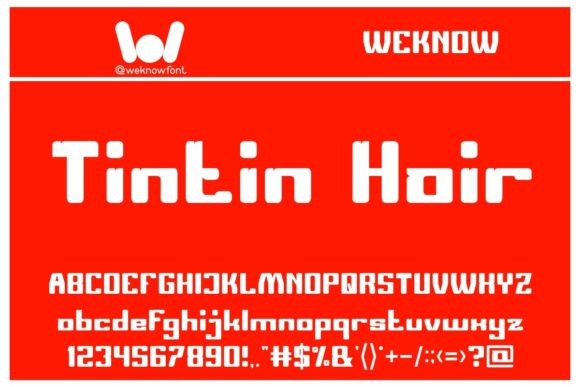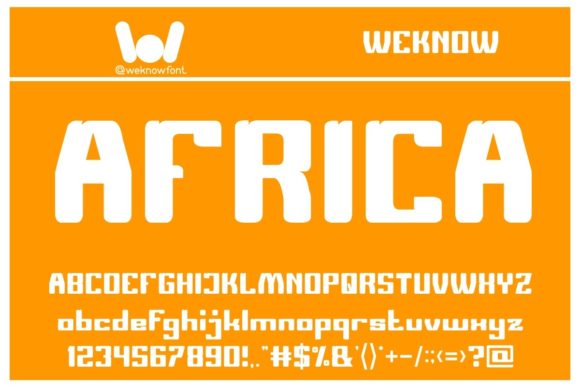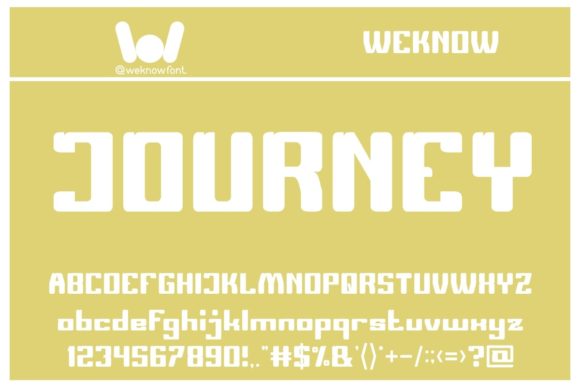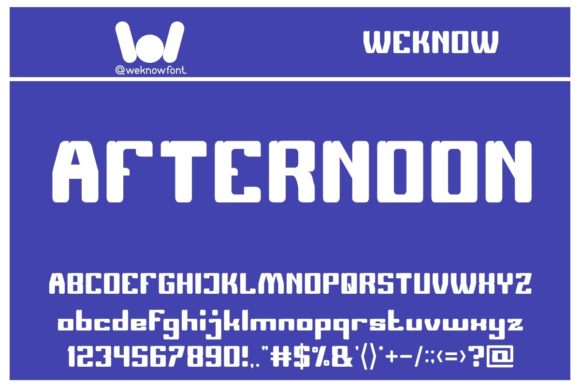
The Great Heart Font: A Bold and Robotic Styled Display Font for Your Creative Projects
I still remember the frustration of working on a branding project, only to get stuck on finding the perfect font. My client wanted something bold, modern, and eye-catching, but I just couldn’t seem to find the right fit. That’s when I stumbled upon the Great Heart font, and it instantly became my go-to choice. In this article, I’ll share my experience with this amazing font, its features, and how to make the most of it in your creative projects.
An Honest Review of Great Heart Font
What I Love About Great Heart Font
- ✨ Bold and Robotic Style: Great Heart font boasts a unique, bold, and robotic style that instantly grabs attention.
- ✅ Versatility: This font is suitable for a wide range of projects, including logos, t-shirt printing, sporting designs, and more.
- 🎨 Highly Customizable: With OpenType features and glyphs, you can experiment with different styles and alternates to match your project’s tone.
While Great Heart font is an excellent choice, there are a few things to keep in mind:
- 🤔 Limited Use in Body Text: Due to its bold style, Great Heart font might not be the best choice for body text or long paragraphs.
- ⚠️ Glyph Compatibility: Some glyphs or special characters might not work seamlessly with all platforms or software.
The Backstory of Great Heart Font
Great Heart font was designed with the intention of creating a bold, attention-grabbing typeface for modern designs. Inspired by industrial and technological themes, this font is perfect for projects that require a strong, robotic style.
Q: What type of projects is Great Heart font best suited for?
A: Great Heart font is ideal for branding projects, logos, t-shirt printing, sporting designs, and any other project that requires a bold, eye-catching font.
Q: Can I use Great Heart font for body text?
A: While Great Heart font is amazing for headlines and titles, it might not be the best choice for body text or long paragraphs due to its bold style.
Q: Is Great Heart font compatible with all platforms?
A: Great Heart font is compatible with most platforms, but some glyphs or special characters might not work seamlessly with all software or devices.